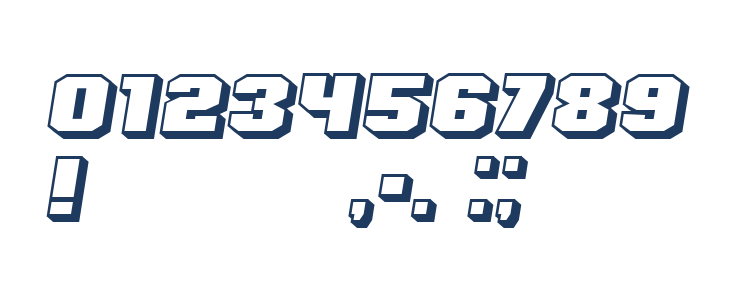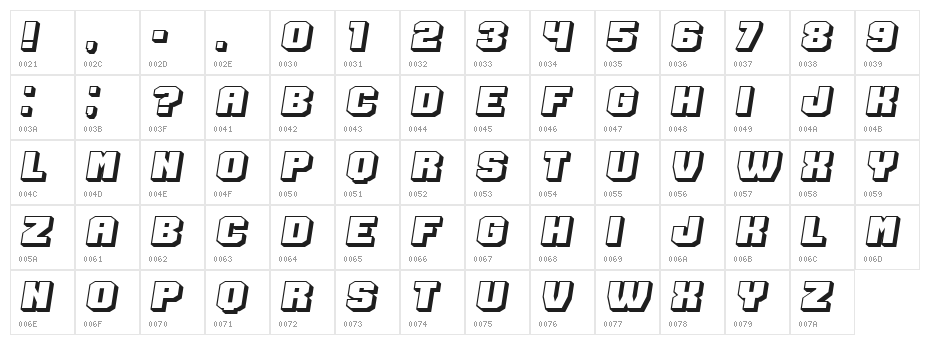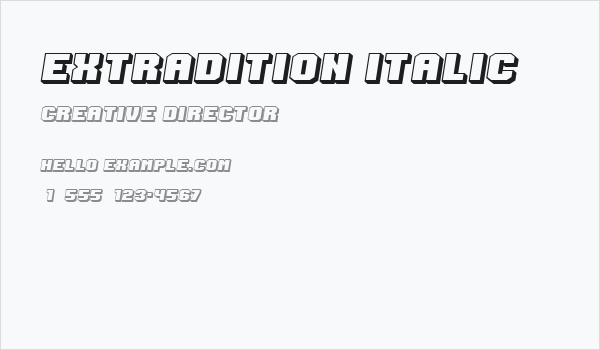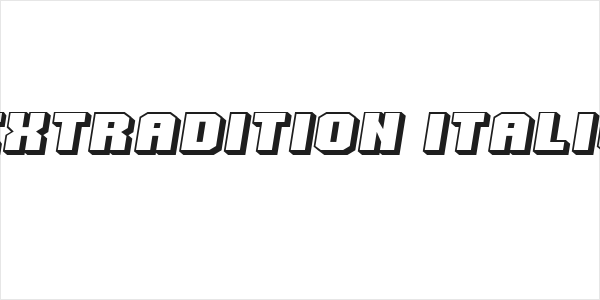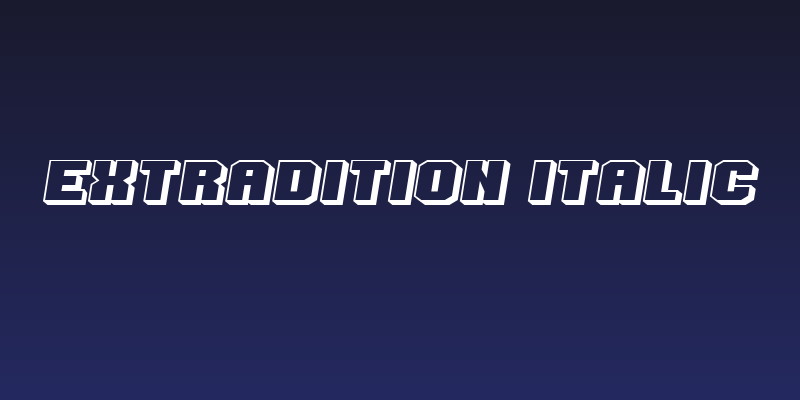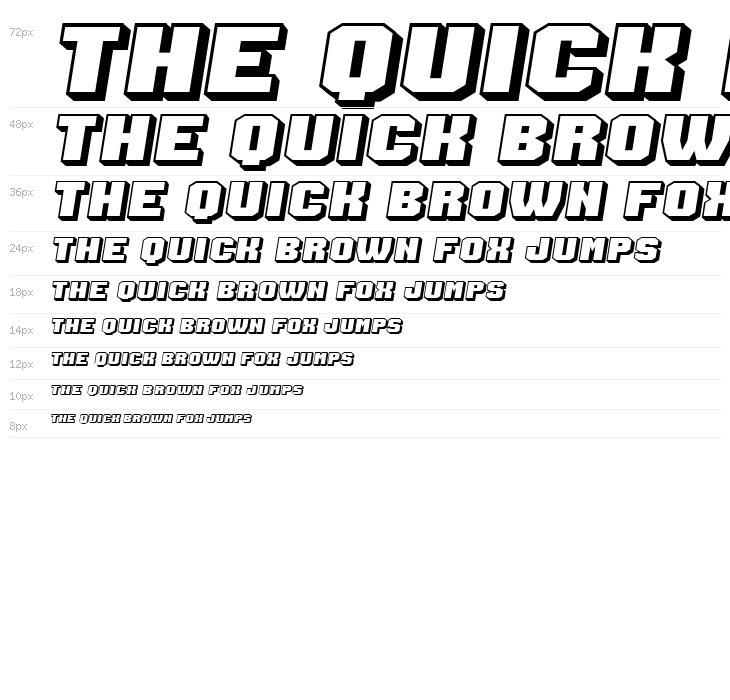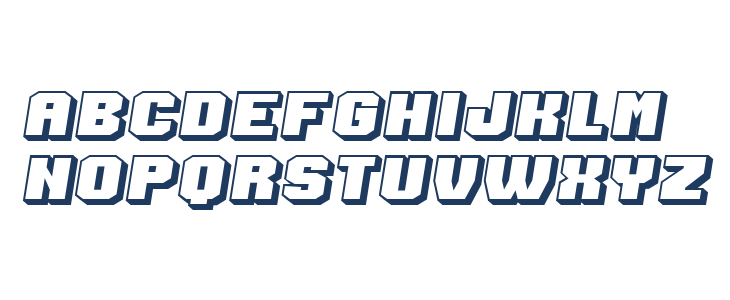
Extradition Italic Font
Extradition Italic Description
This font features a bold, three-dimensional appearance with a strong, impactful presence. The characters are designed with a shadow effect that gives them a sense of depth and solidity. The uppercase letters are prominent and assertive, making them ideal for attention-grabbing headlines or titles. The numbers and special characters maintain the same bold style, ensuring consistency across all text elements. The italic slant adds a dynamic and energetic feel, enhancing the overall visual impact. This font is perfect for projects that require a modern and bold statement.
| Proposed Projects | Ideal for posters, logos, video game graphics, and any design needing a bold, modern touch. |